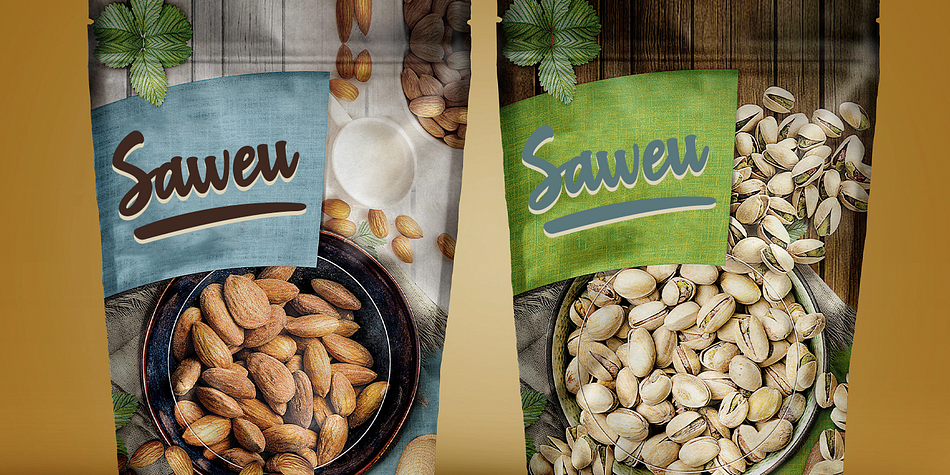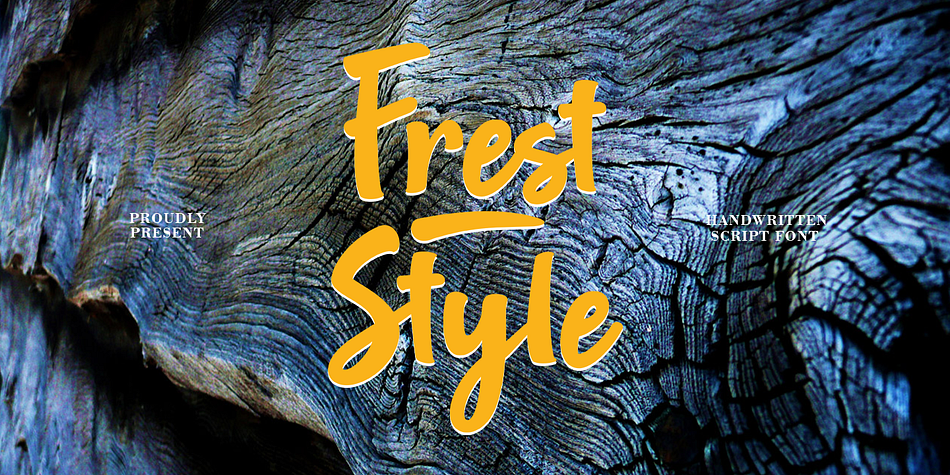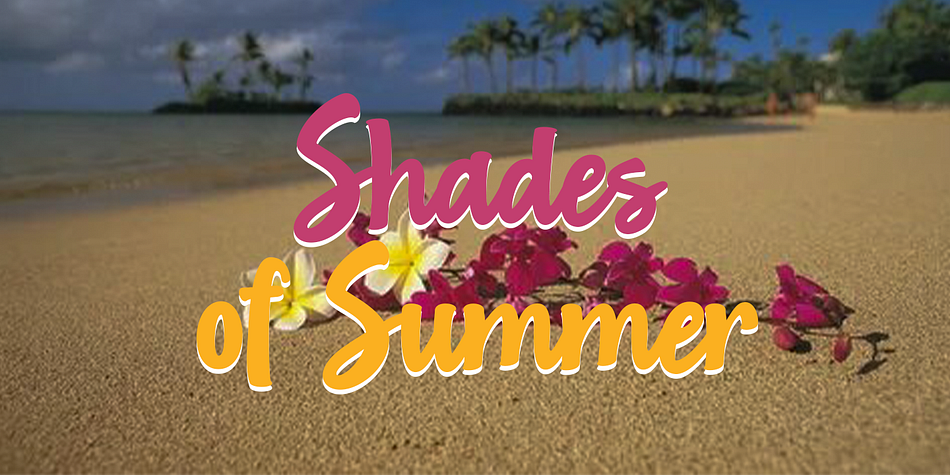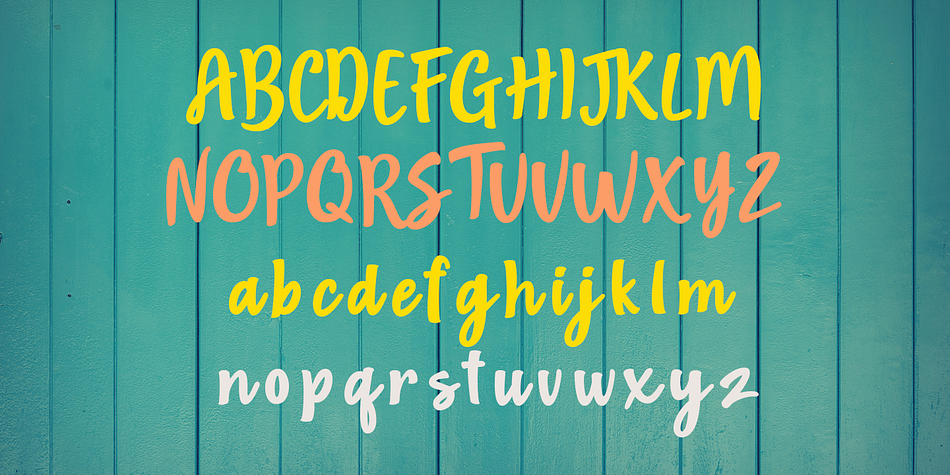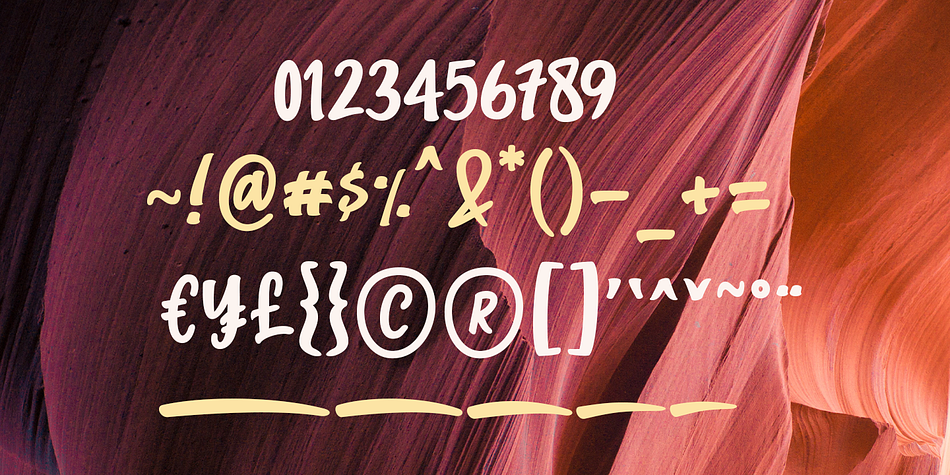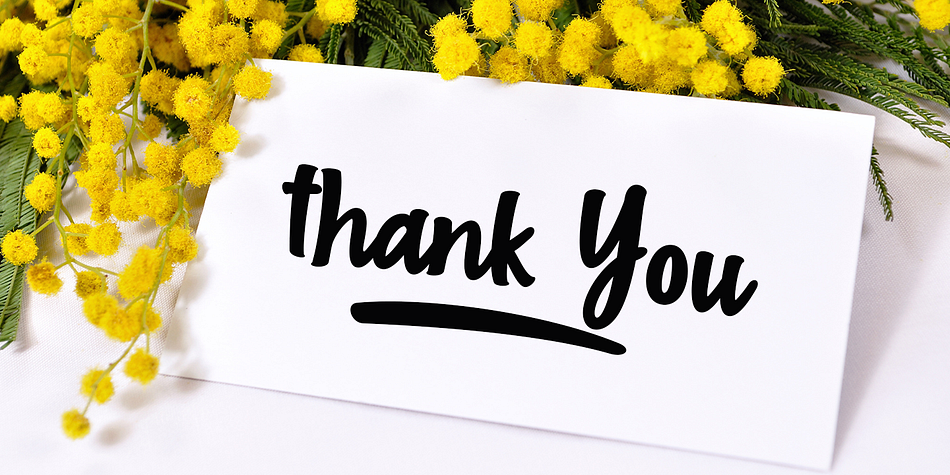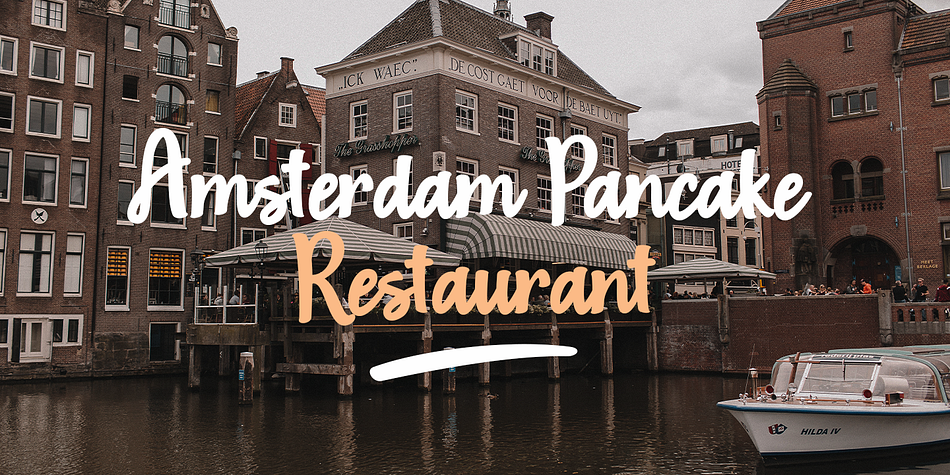
Fresh Style
Fresh Style is a brush script font family published by Gatype.
Fresh Style is a modern script style similar to hand lettering, decorative characters, designed to perfectly blend informal, romantic, sassy, ​​sweet script. Hand-drawn design elements allow you to create tons of beautiful typographic designs in seconds such as branding, logos, web design and editorial, prints, invitations, crafts, quotes and many more.